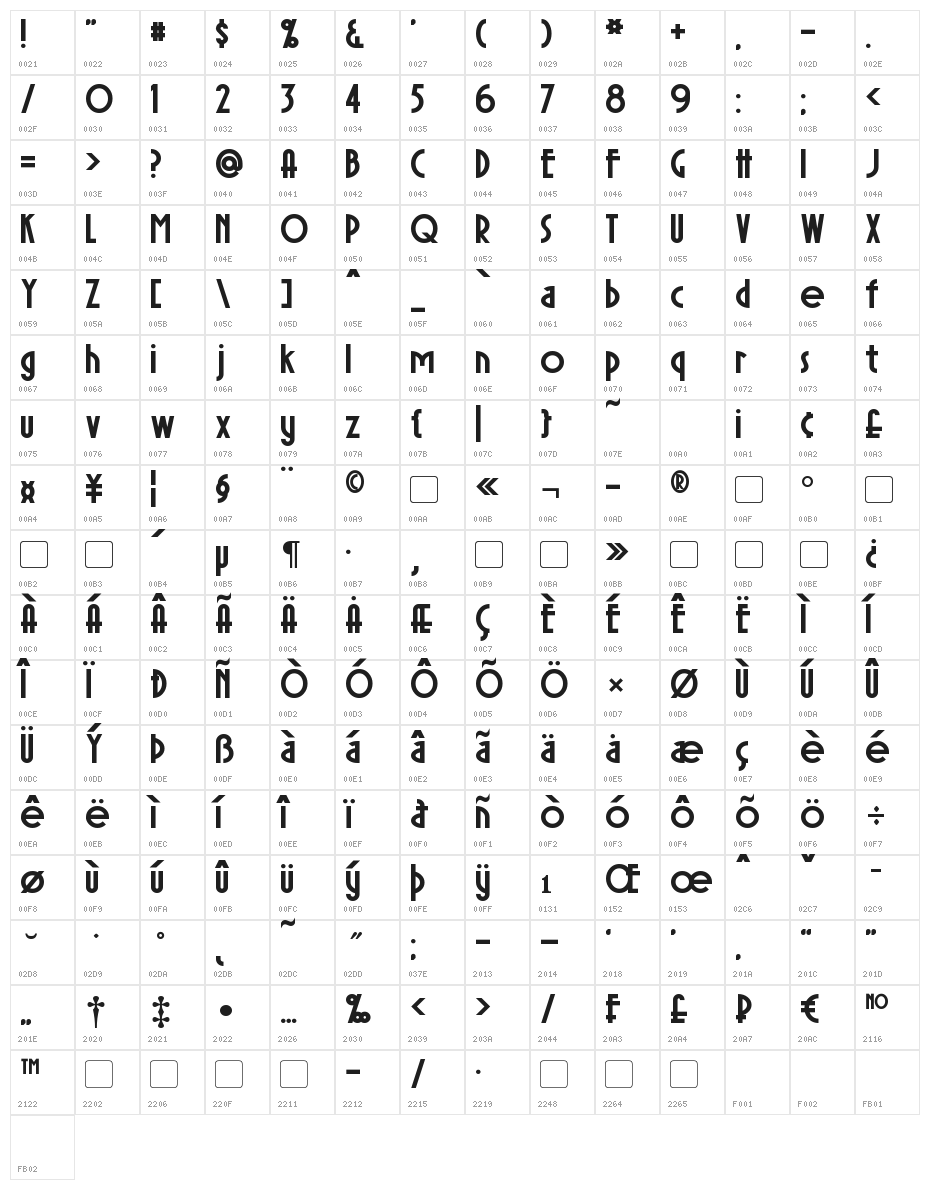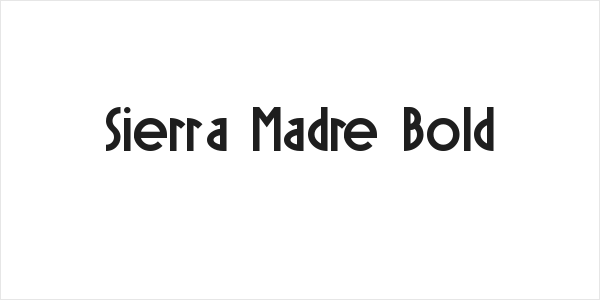
Sierra Madre Bold Font
Sierra Madre Bold Description
This font features a bold and striking design with a geometric and art deco influence. The characters are crafted with a strong emphasis on vertical and horizontal lines, giving it a structured and architectural feel. The uppercase letters are particularly distinctive, with unique angles and curves that create a sense of movement and energy. The lowercase letters maintain a consistent style, complementing the uppercase with their rounded forms and clean lines. The numerals are bold and easily readable, while the special characters add a touch of flair with their creative shapes. Overall, this font exudes a sense of modernity and sophistication, making it ideal for projects that require a bold statement.